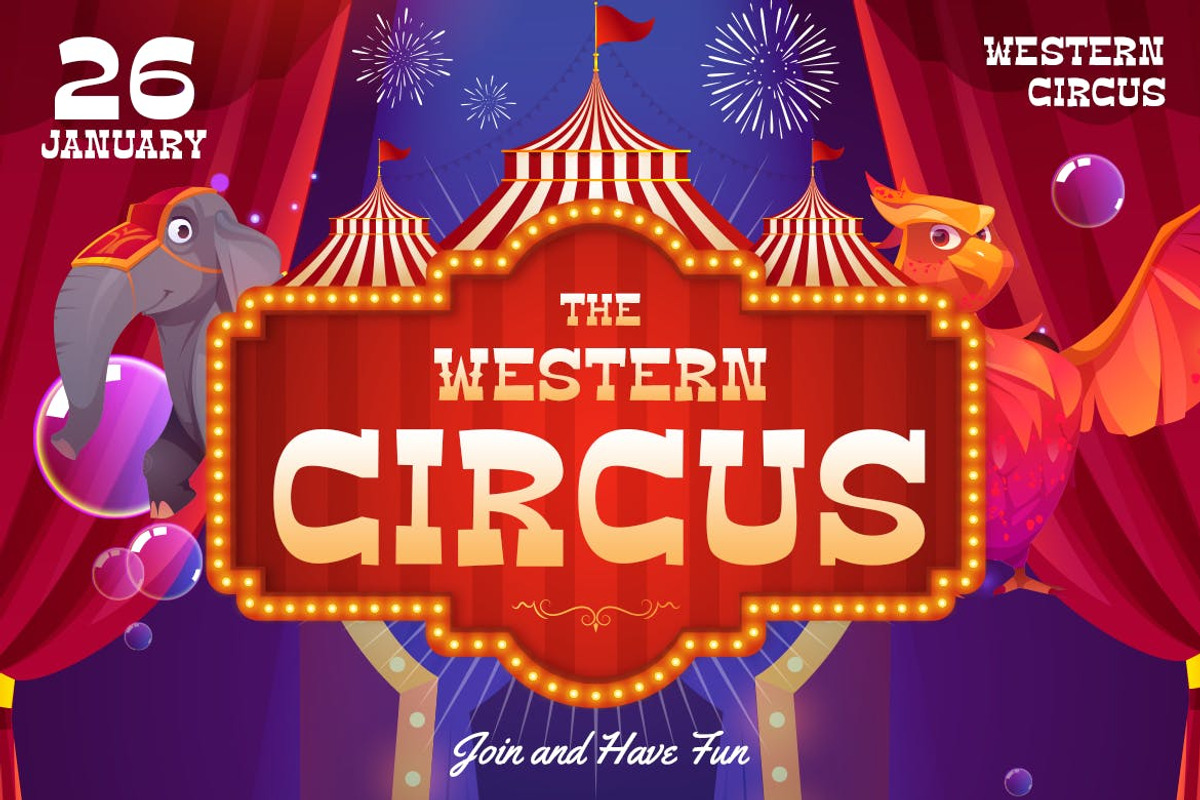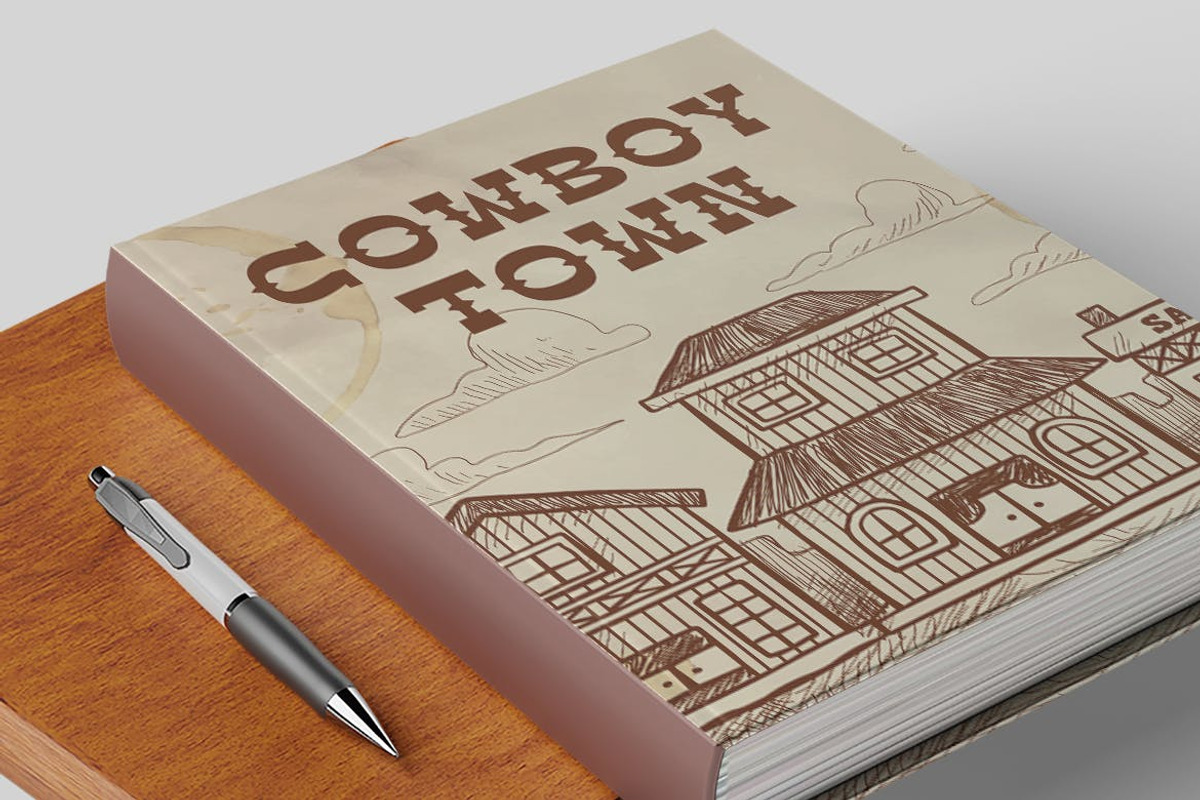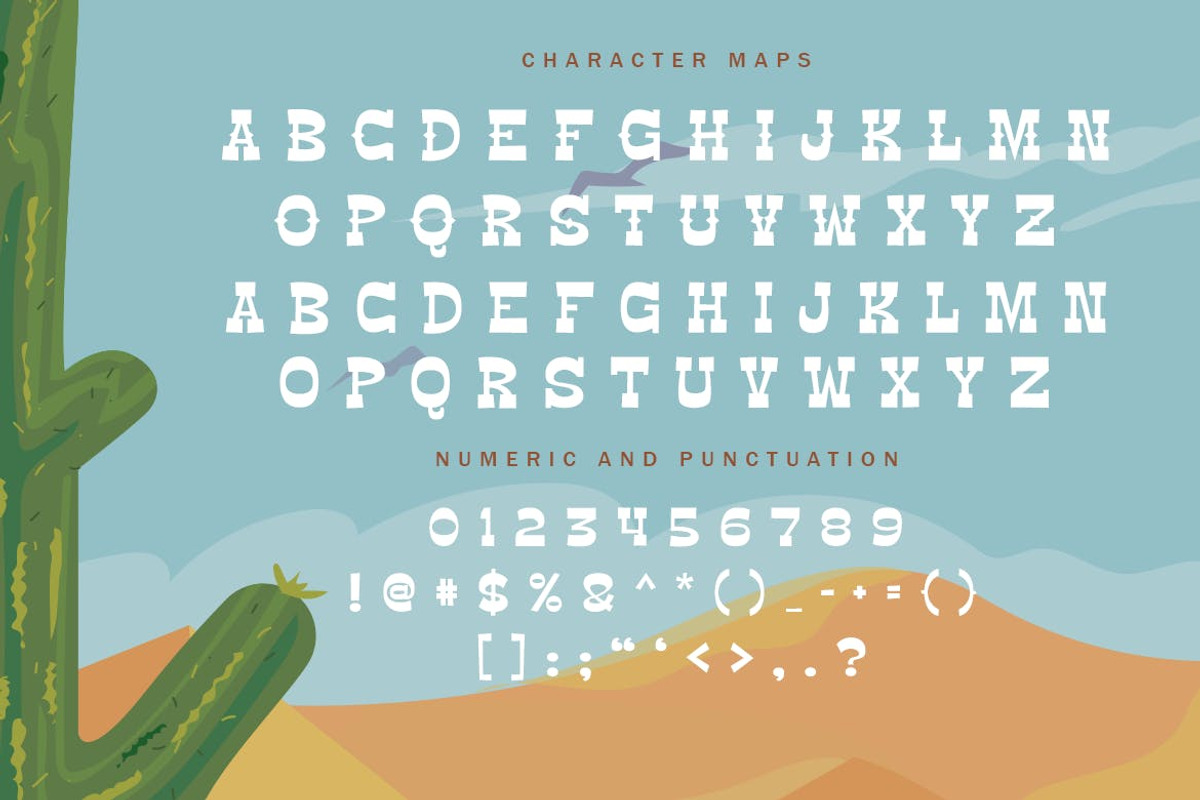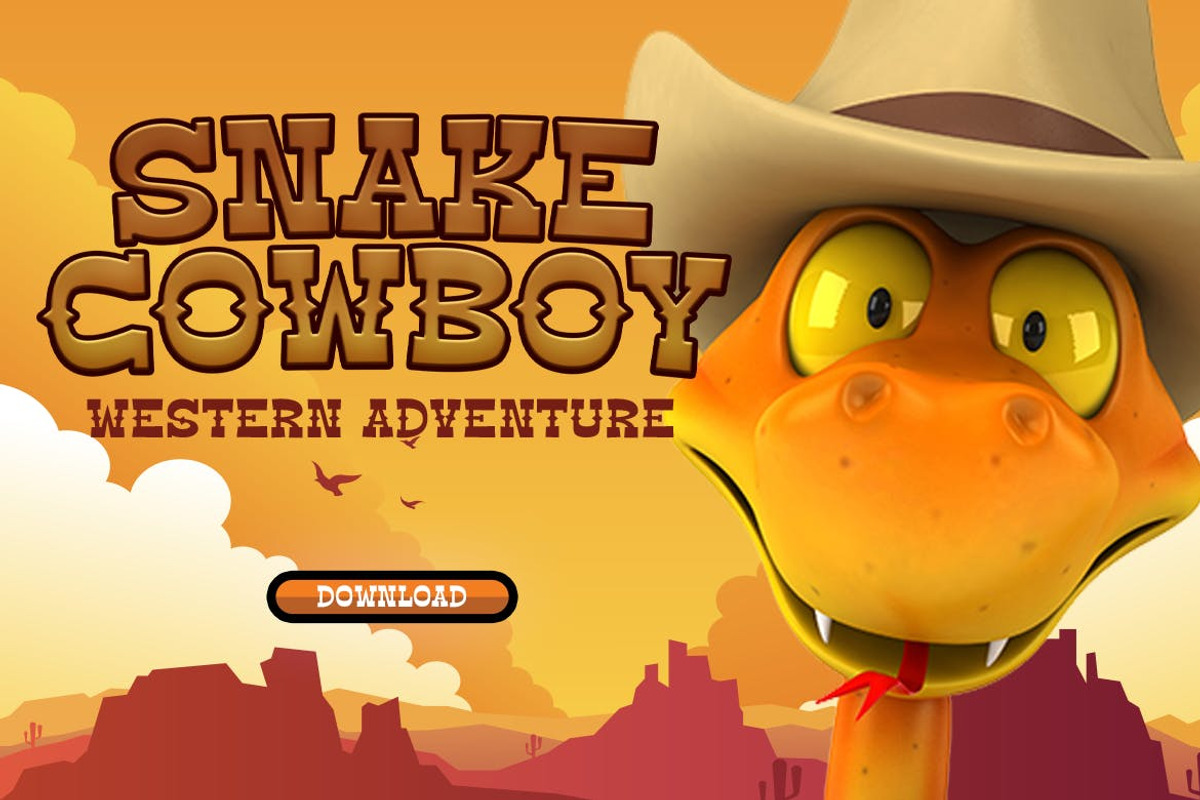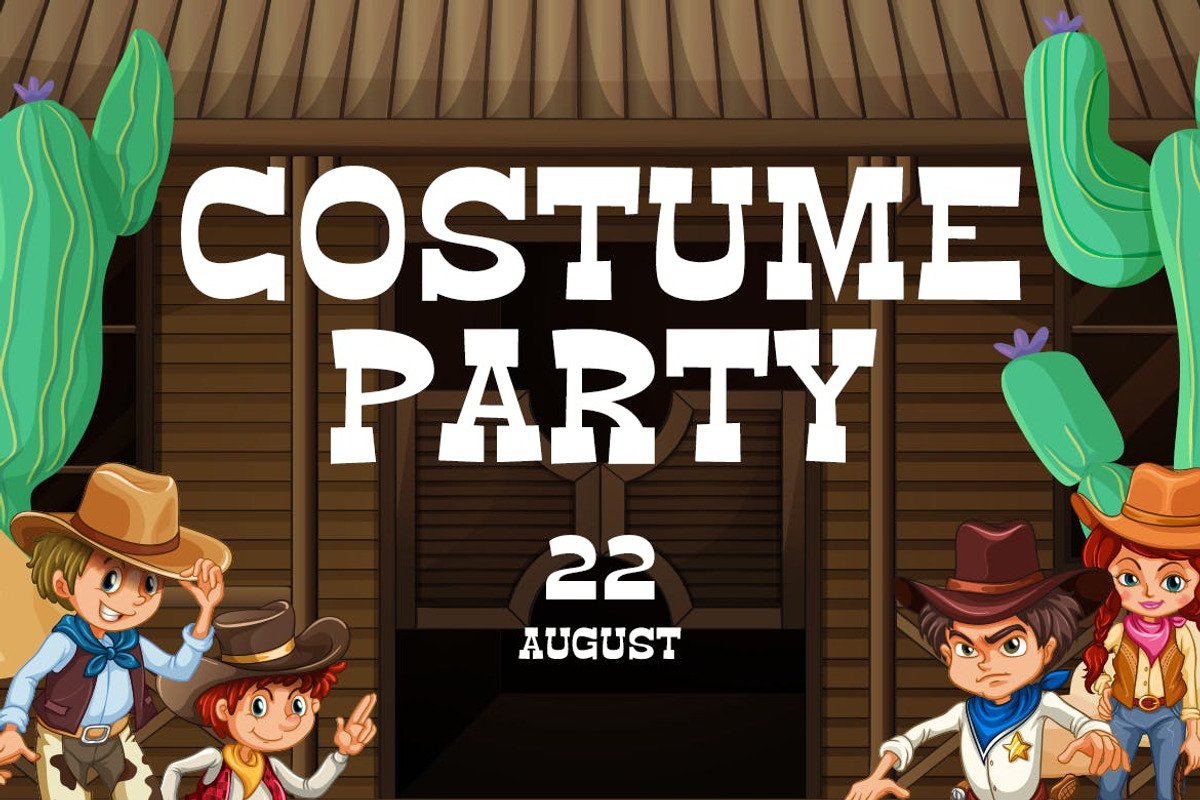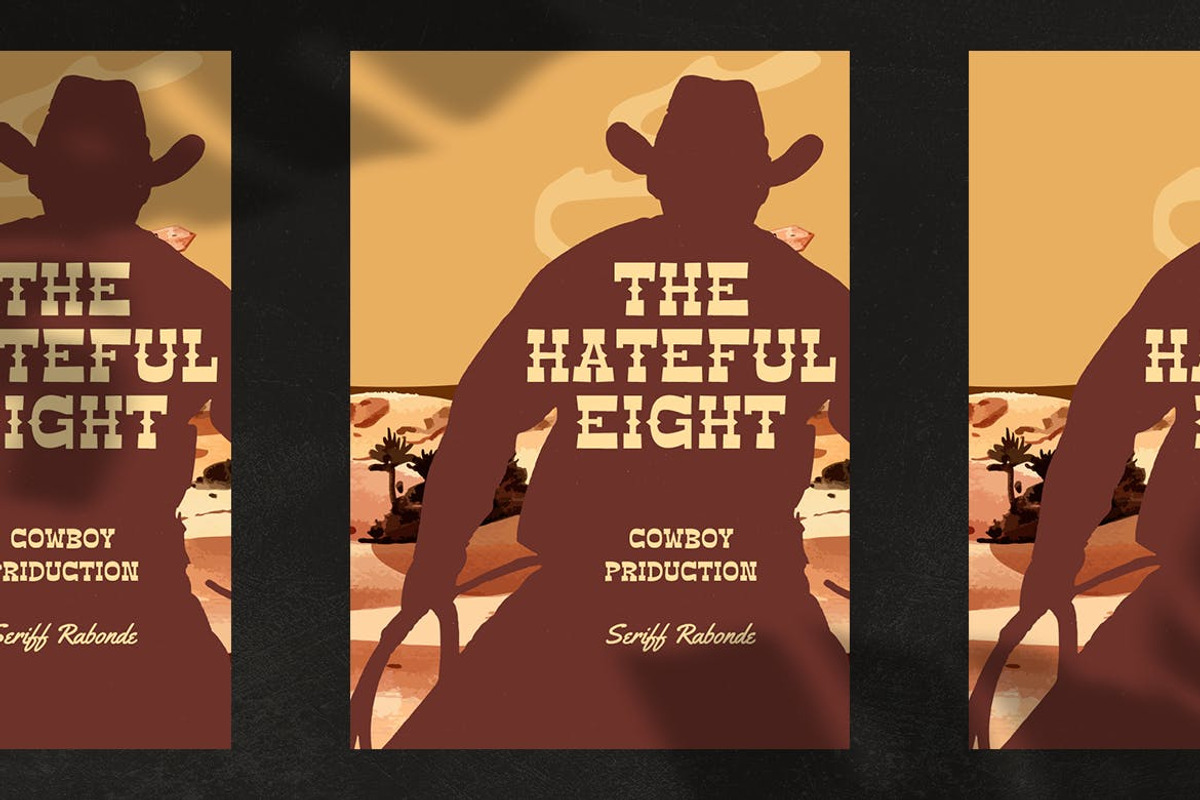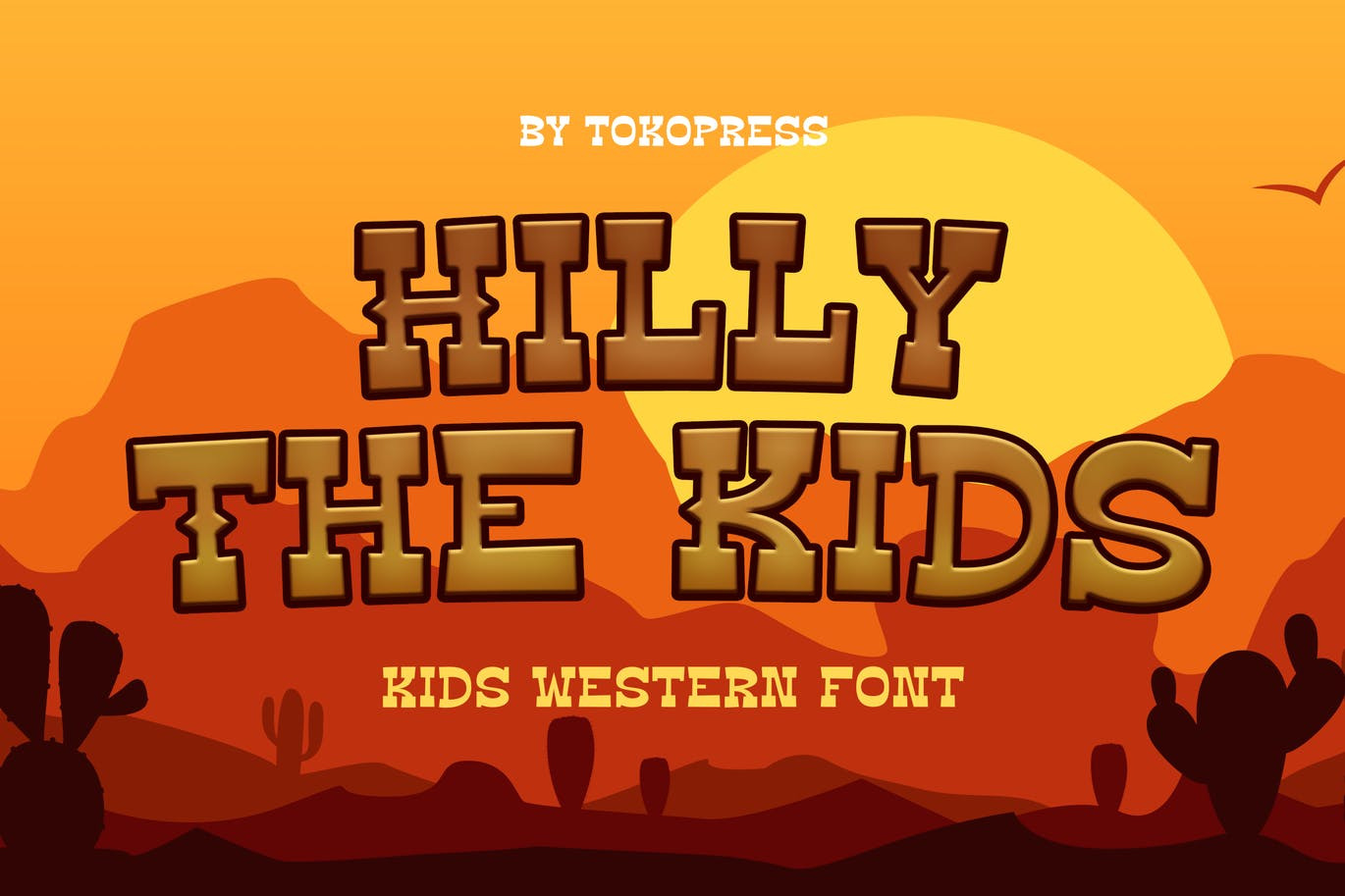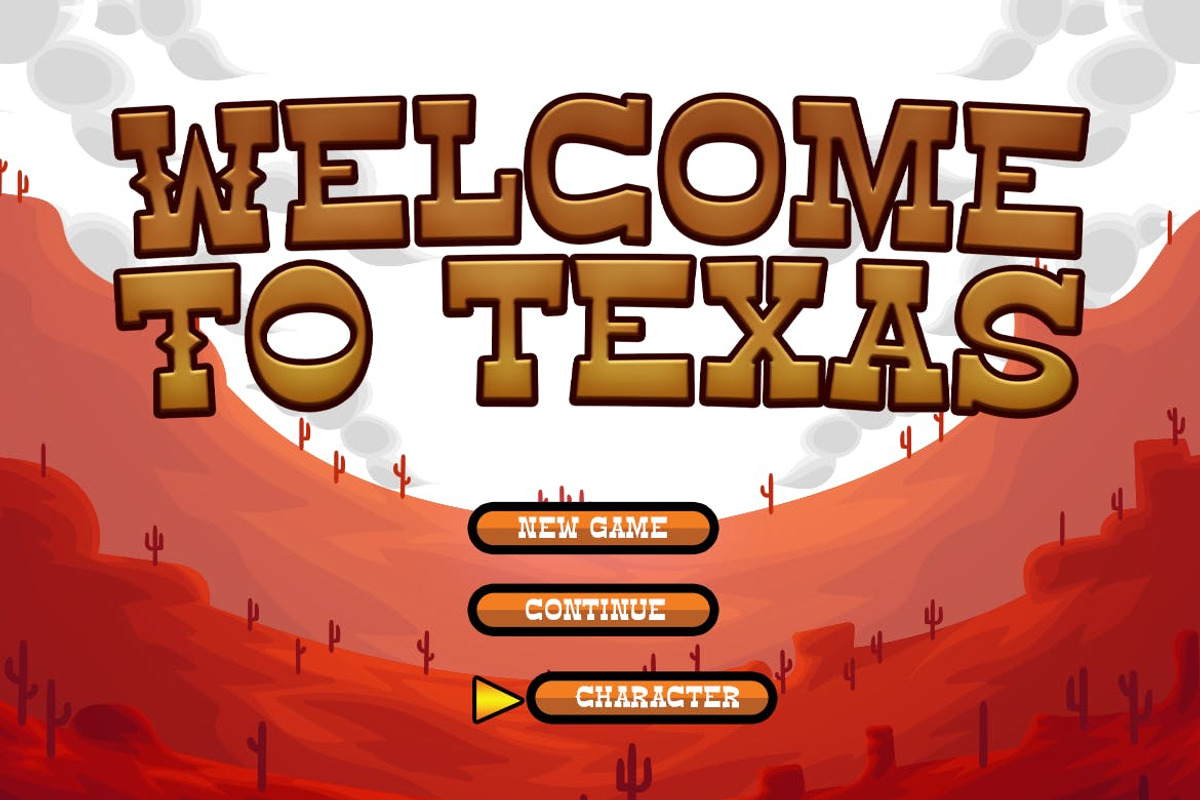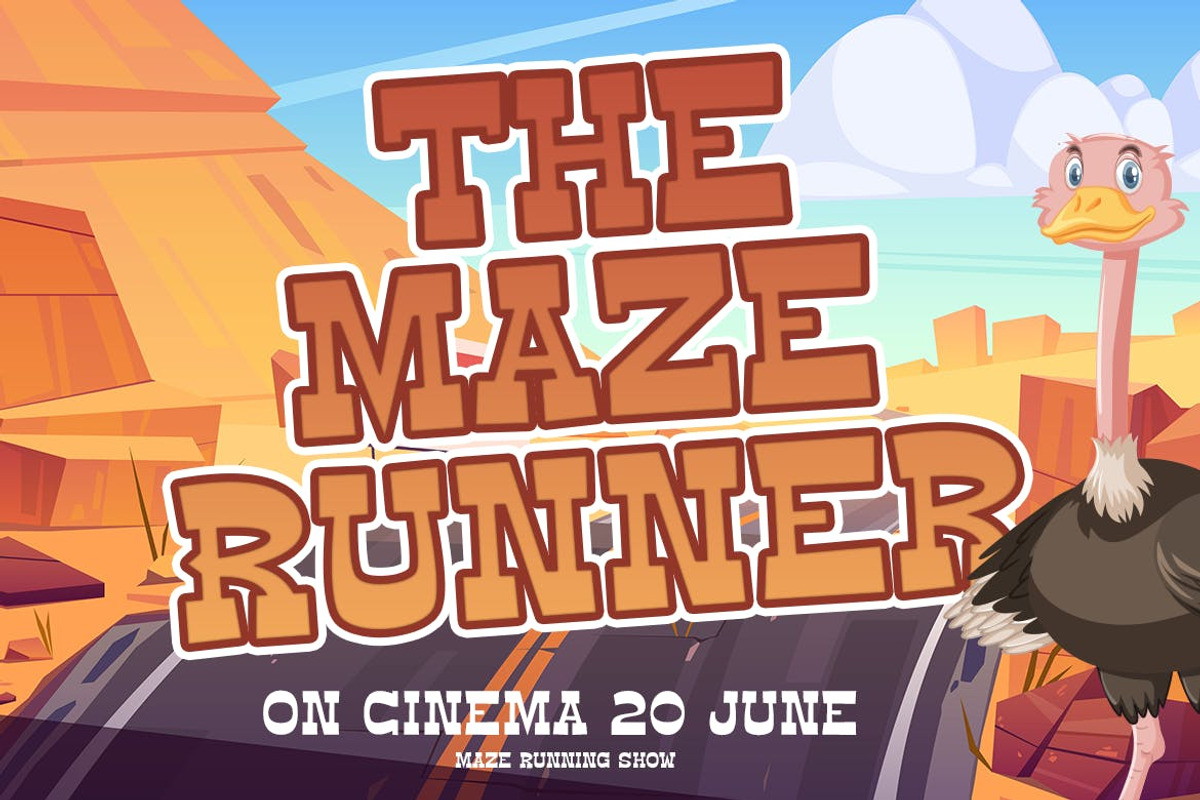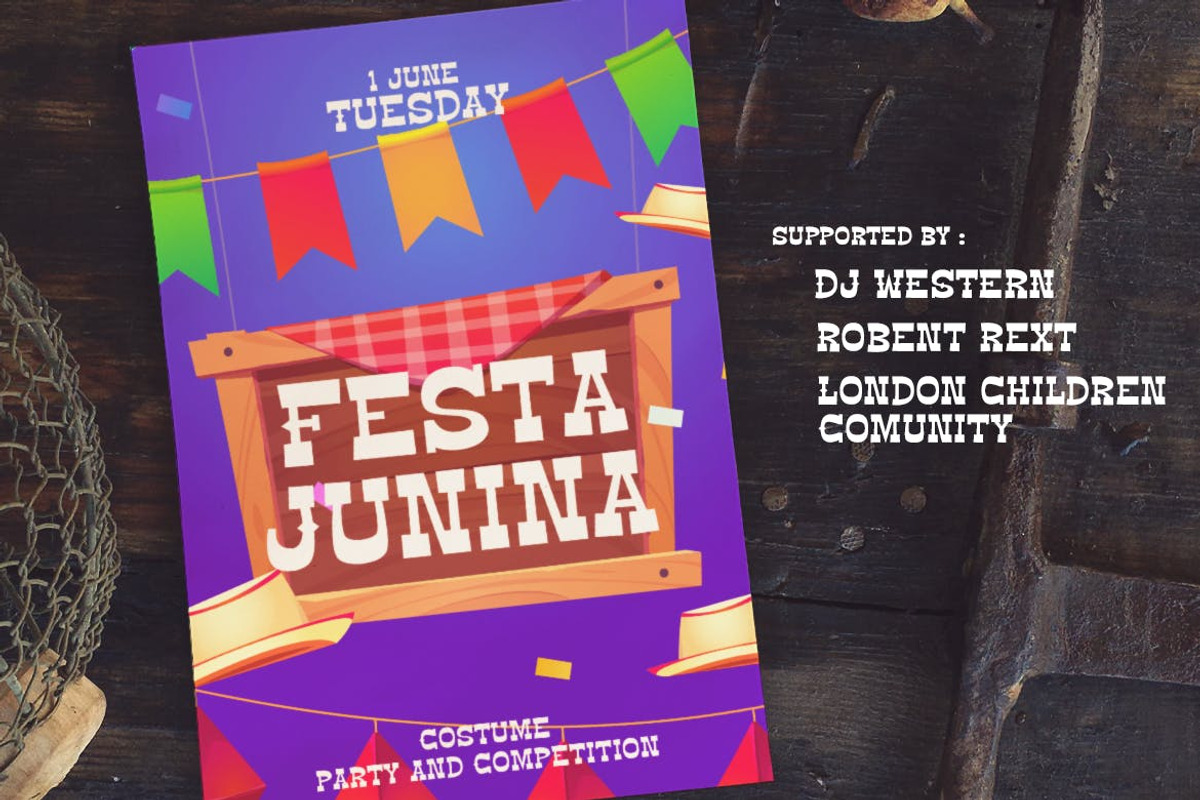
Hilly The Kids - Gaming western font
It is western, it is a bouncy baseline, it is Hilly The Kids, your new favourite western kids font in town.
Suit perfectly for kids market, online games, stationary, t-shirt and school supplies font, poster, movie title, youtube covers, youtube thumbnails, social media page covers and so on...